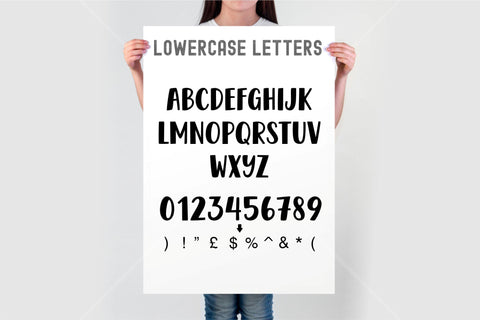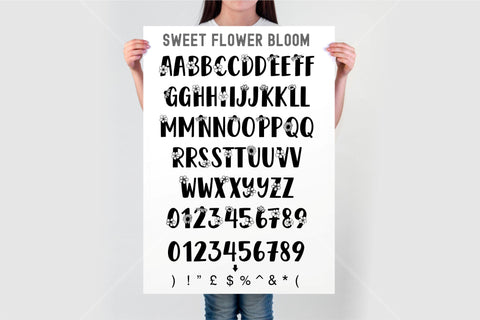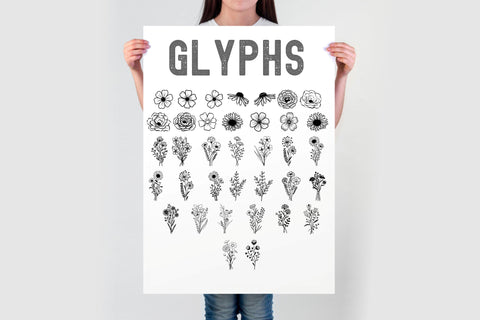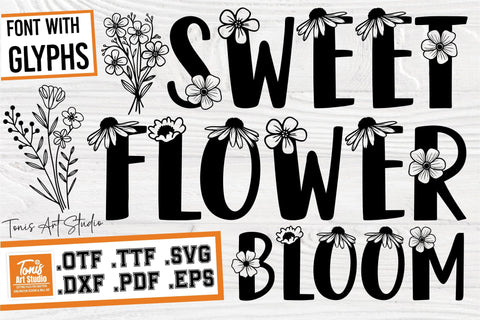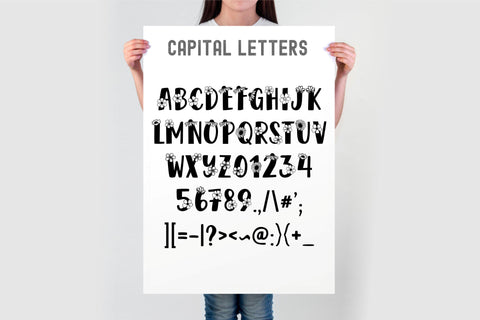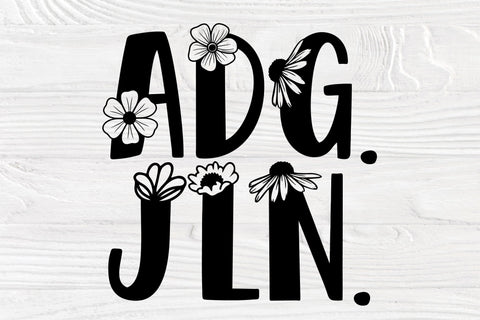
Flower Font Svg, Otf, Ttf | Sweet Flower Bloom | Spring Font | Floral Letters Svg | Elegant Floral Font | Flower Glyphs
Bring a charming floral touch to your projects with the "Sweet Flower Bloom" font! This delightful typeface combines bold floral-themed uppercase letters with regular lowercase characters, making it perfect for a variety of creative projects. Whether you're working on t-shirts, mugs, invitations, or home decor, this font offers endless possibilities for adding a playful and elegant touch to your designs.
The "Sweet Flower Bloom" font includes hand-drawn floral glyphs, perfect for creating personalized, nature-inspired designs. It also comes with cut file formats for crafting machines like Cricut and Silhouette, ensuring maximum flexibility for your DIY projects.
Hand-drawn floral glyphs for a natural and artistic touch.
Uppercase letters feature bold floral accents, while lowercase letters remain classic for versatile use.
Includes glyphs for adding floral embellishments to your designs.